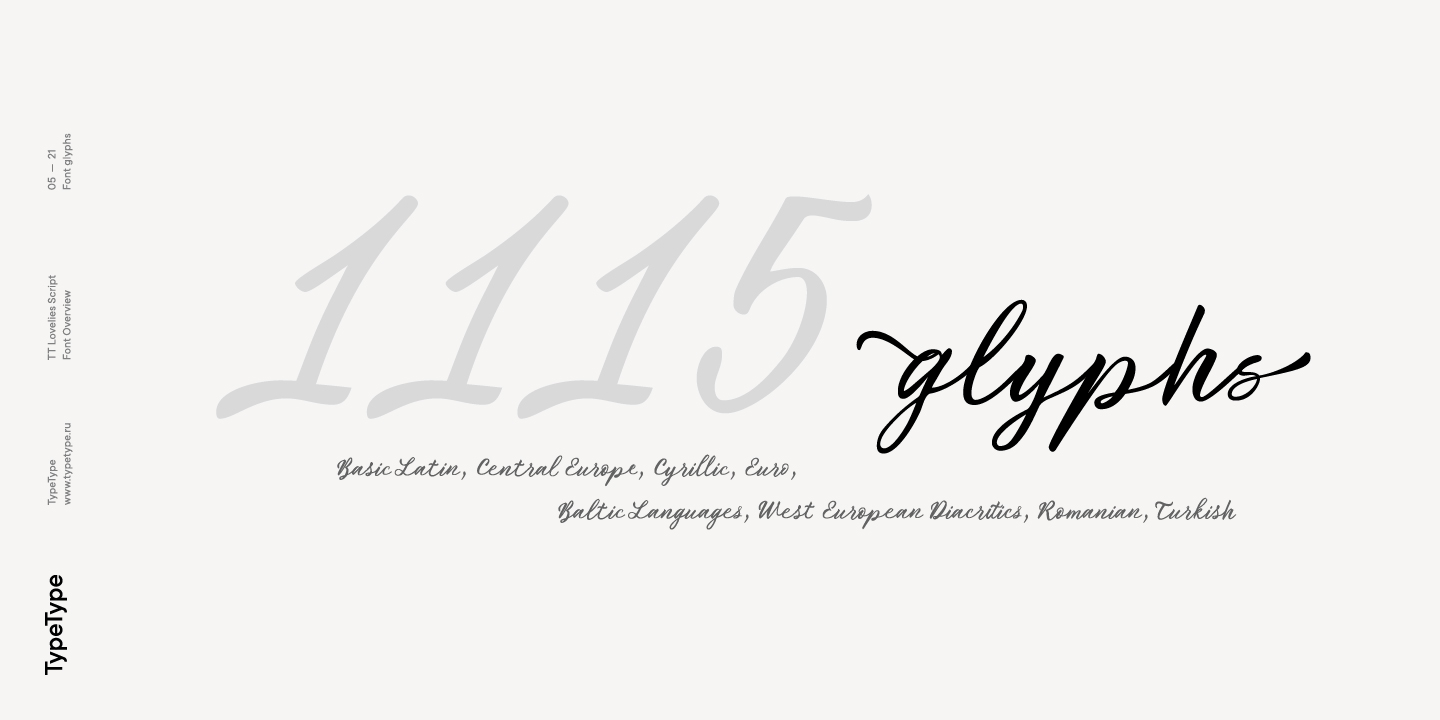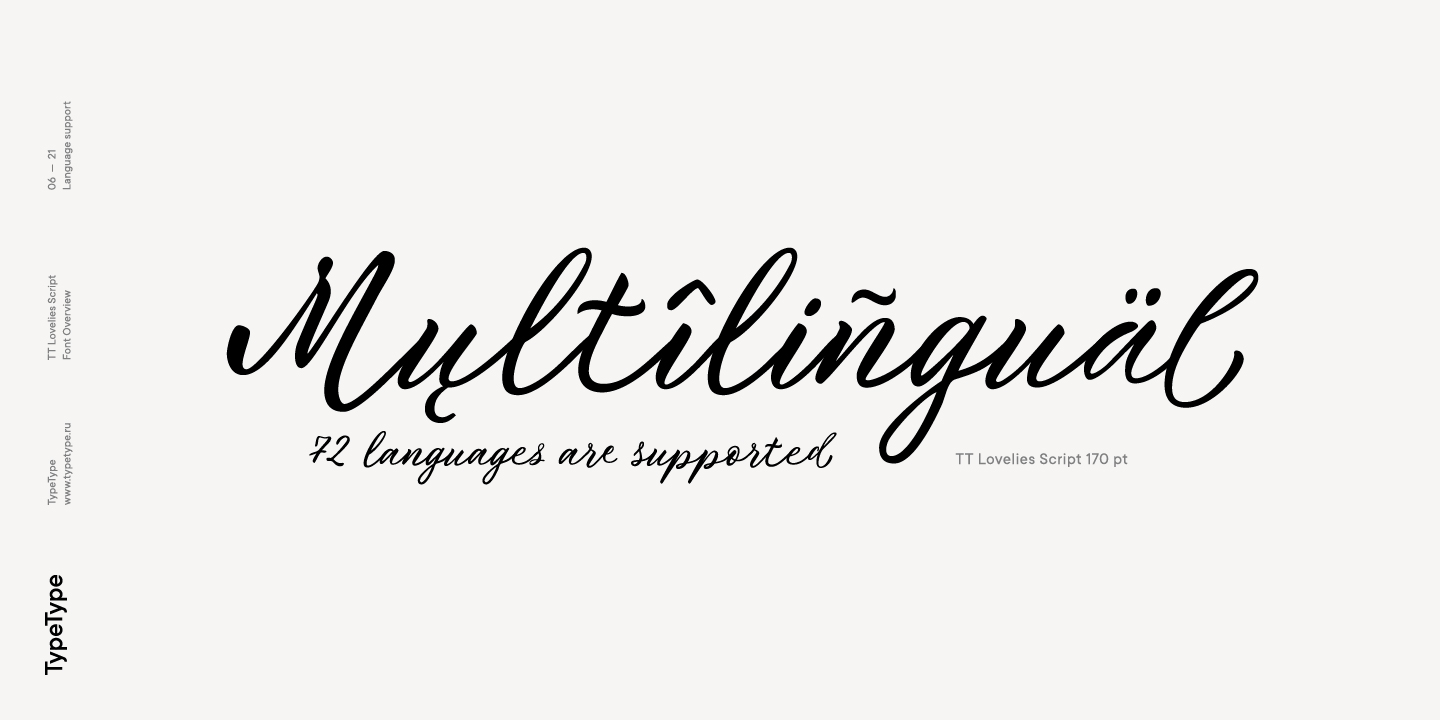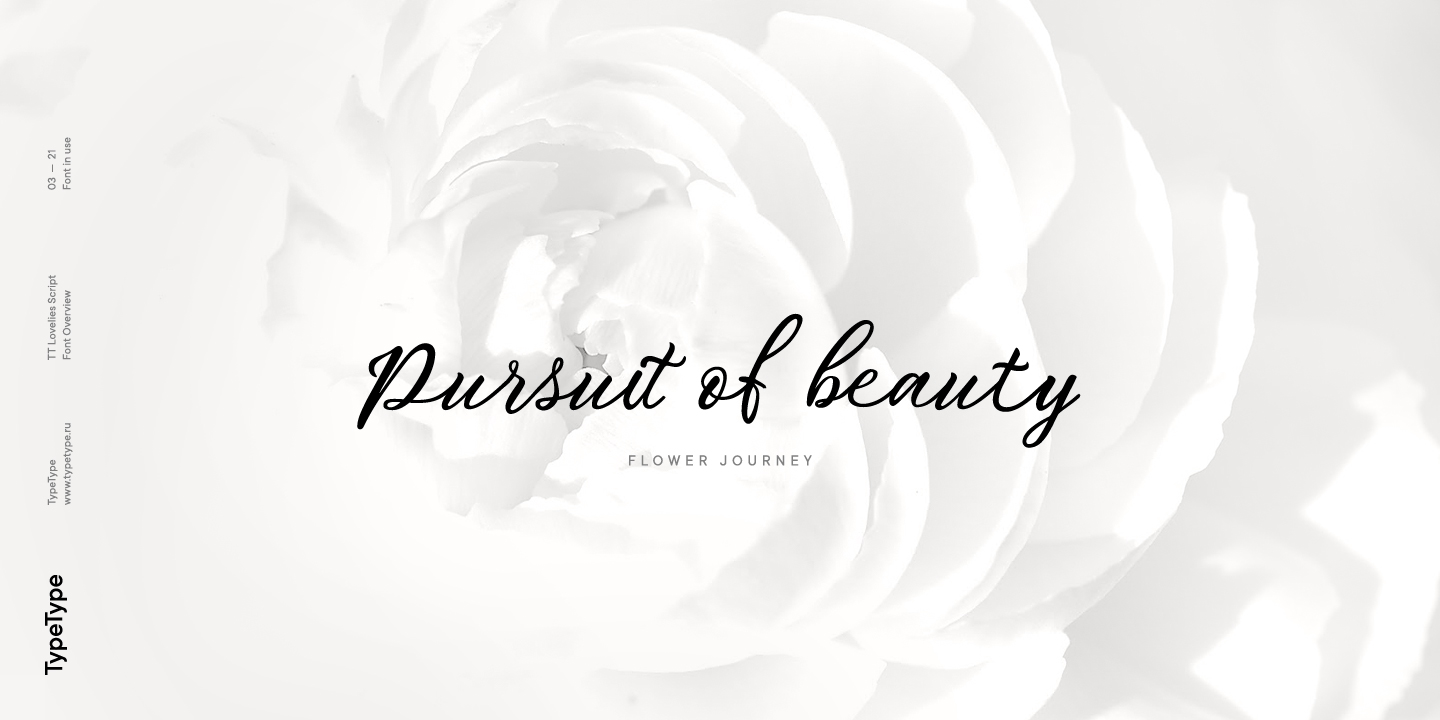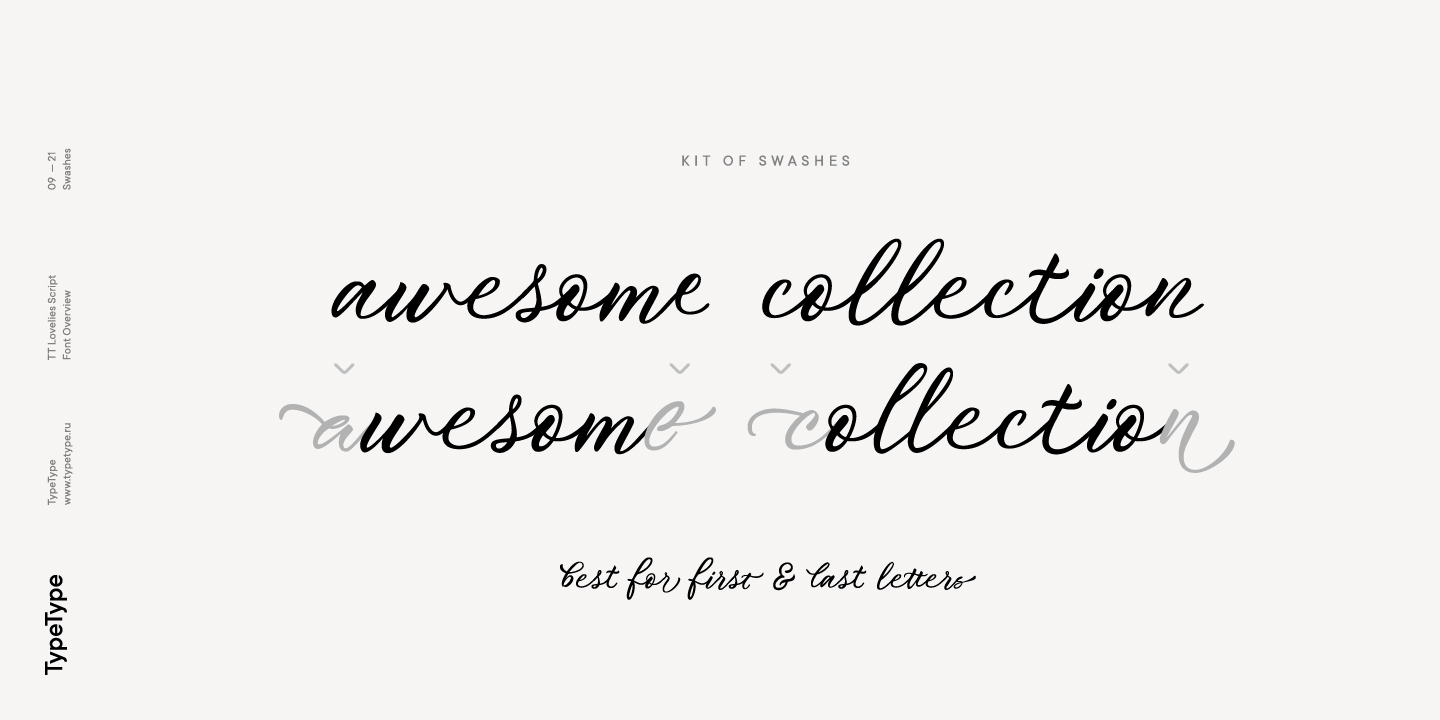
TT Lovelies Script (1 font)
Turn on the use of OT features CALT & DLIG in your graphic editor and use the font to the full. Every lower-case letter has characteristic pen strokes which begin and end a word. The pen strokes are turned on automatically when you accordingly type two hyphens at the beginning and at the end of a word. For instance, type '- - apricot - -' and you'll see the beautiful pen strokes at the beginning and at the end of the word. TT Lovelies Script uses a great number of contextual alternates and ligatures which help maintain the handwritten impression. For each letter, a separate grapheme is created for the end of a line, and we've also integrated the Case Sensitive OT feature to make working with upper-case characters easier. We've enabled onum, sups, sinf, numr, dnom, frac, ordn as well in order to work with figures. To benefit from all of these wonderful options, you need to use software which supports OT features.
Baltic, Central/Eastern Europe, Cyrillic, Romanian, Turkish, Western Europe
Old-style Digits, Ligatures, Discretionary Ligatures, Contextual Alternates, Fractions, Superscript, Subscript